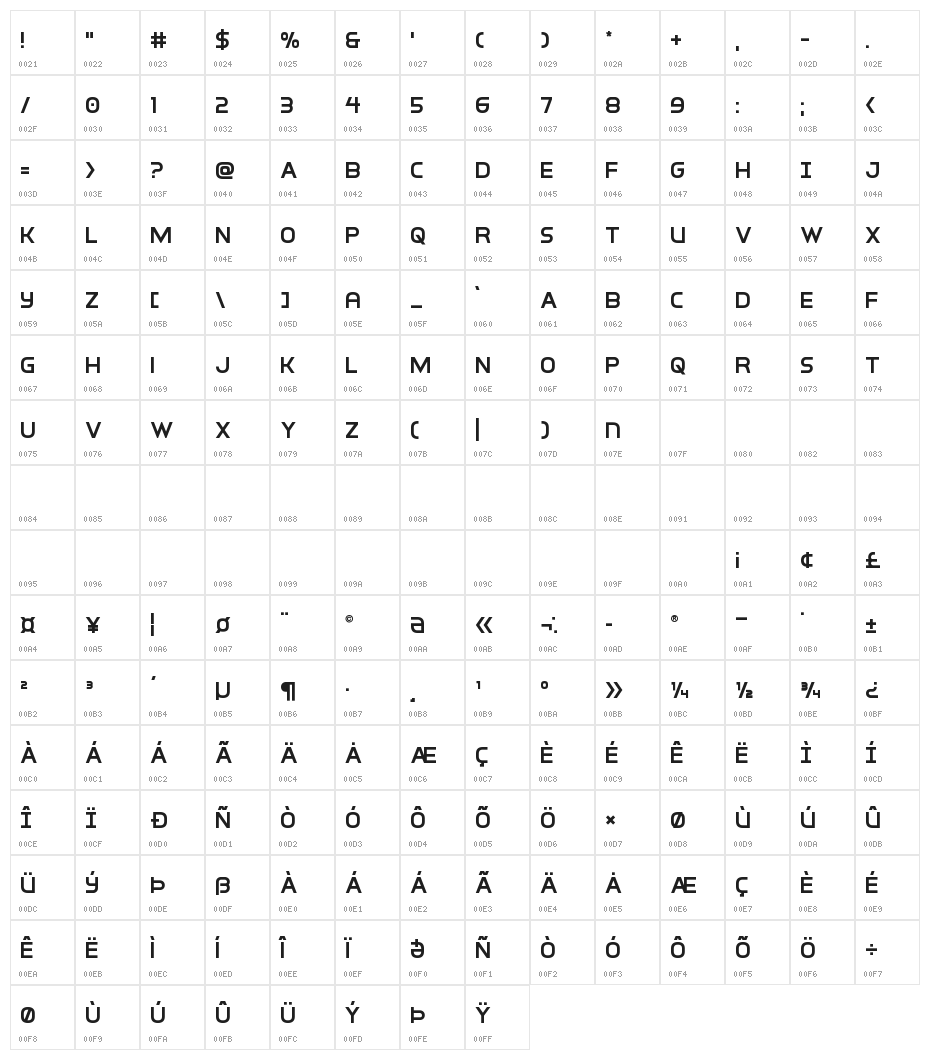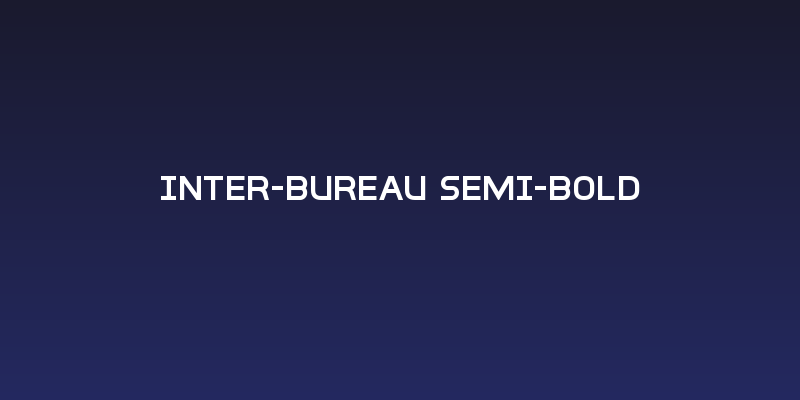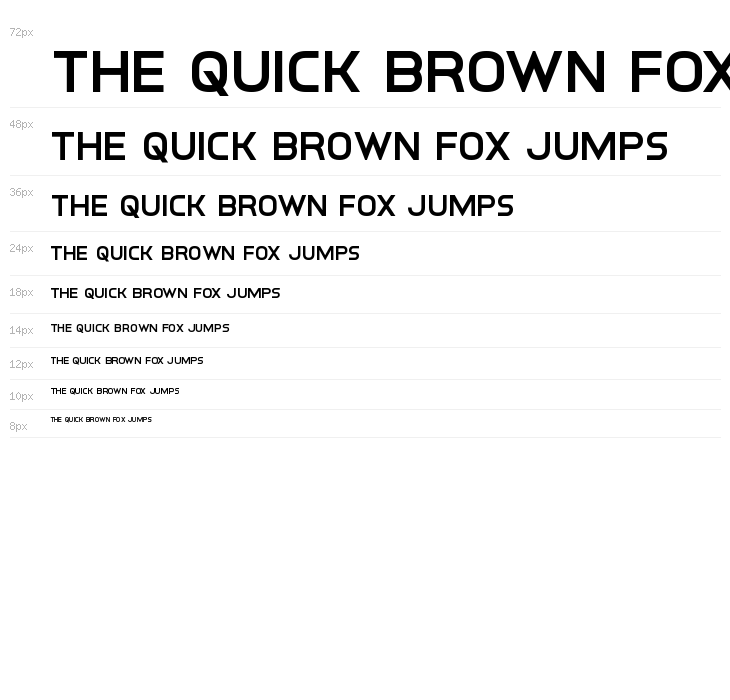
Inter-Bureau Semi-Bold Font
Inter-Bureau Semi-Bold Description
This font features a clean and modern sans-serif design with a semi-bold weight, offering a strong yet approachable appearance. The characters are well-proportioned, with a consistent stroke width that provides a balanced and harmonious look. The uppercase and lowercase letters maintain a uniform style, ensuring readability and versatility. The numerals are clear and distinct, making them suitable for various applications. Special characters are included, enhancing the font's functionality for diverse uses.